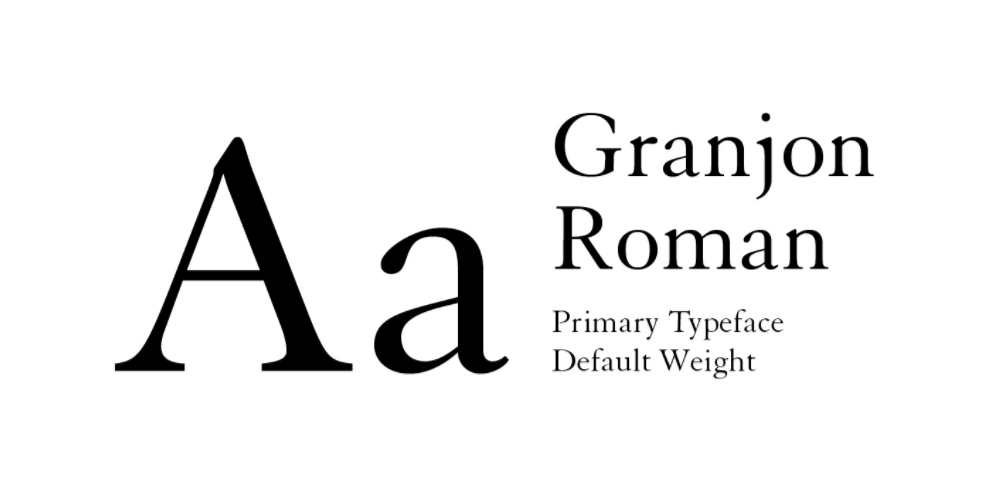
Granjon
Granjon is an old-style serif typeface designed by George W. Jones in the period 1928–1929 for the British branch of the Linotype company, and based on the Garamond typeface that was used in a book printed by the Parisian Jean Poupy in 1592